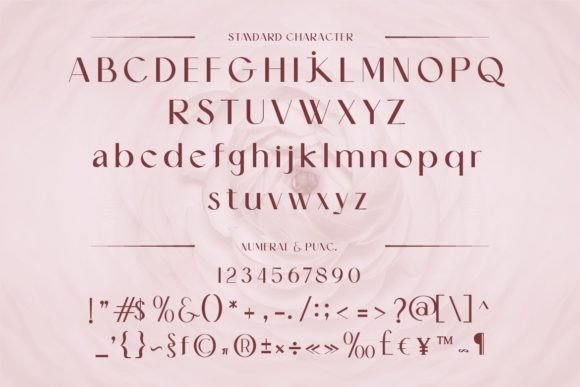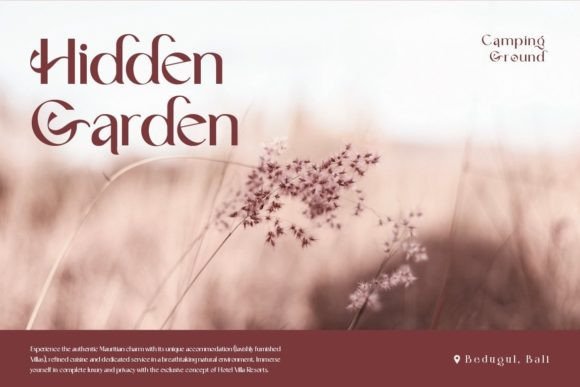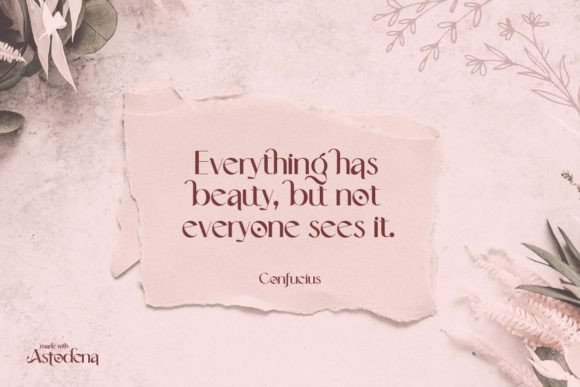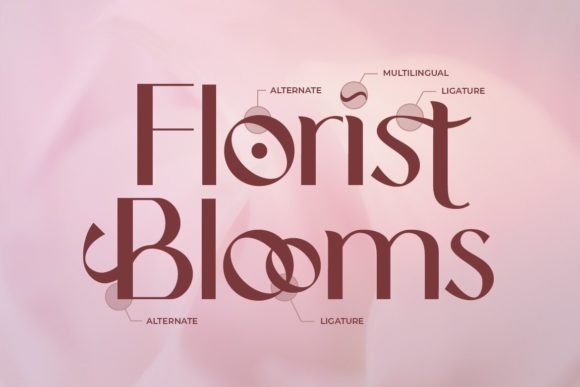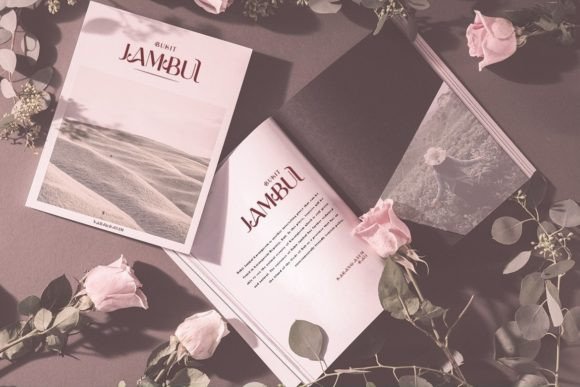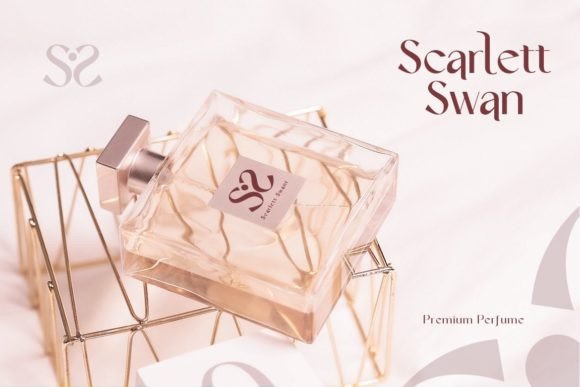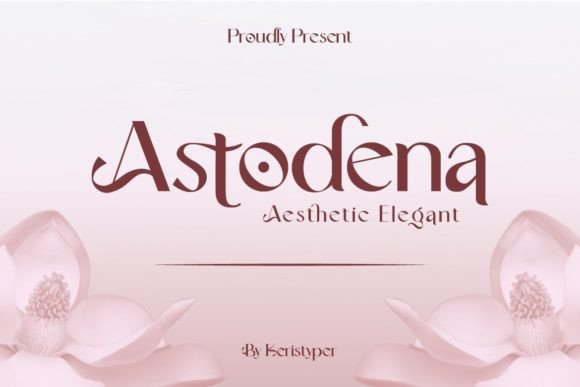
Astodena Font: Elevate Your Design with Elegance
In the world of typography, fonts play a crucial role in conveying the tone and aesthetic of a design. For designers and crafters seeking a font that exudes elegance and sophistication, Astodena is an excellent choice. This stunning sans serif font is perfect for a wide range of applications, from logo design to movie titles, and is sure to elevate your work to new heights.
The Astodena Advantage
So, what sets Astodena apart from other fonts? Here are a few key advantages that make it a standout choice:
- Elegant and Aesthetic: Astodena boasts a sleek, modern design that is both elegant and visually appealing. Its clean lines and minimalist aesthetic make it perfect for designs that require a touch of sophistication.
- Versatile: This font is incredibly versatile, making it suitable for a wide range of applications. Whether you’re working on a logo design, social media graphics, movie titles, book titles, or even long text letters, Astodena is an excellent choice.
- Readable: Despite its elegant design, Astodena is also highly readable, making it perfect for both short and long text. This means you can use it for everything from headlines to body text, ensuring a consistent and professional look throughout your design.
Use Cases for Astodena
Given its versatility and aesthetic appeal, Astodena is suitable for a variety of design projects. Here are some use cases where Astodena truly shines:
- Logo Design: Create a lasting impression with a logo that exudes elegance and sophistication. Astodena’s unique design makes it perfect for logos that need to stand out.
- Social Media Graphics: Elevate your social media presence with graphics that feature Astodena. Its clean and modern design is sure to grab attention and engage your audience.
- Movie and Book Titles: Add a touch of glamour to your movie and book titles with Astodena. Its elegant design is perfect for creating eye-catching titles that draw readers in.
- Secondary Text: Use Astodena as a secondary font to add a touch of elegance to your designs. Its readability and aesthetic appeal make it perfect for supporting text that needs to complement a primary font.
Why Designers and Crafters Love Astodena
Designers and crafters are always on the lookout for fonts that can help them create stunning designs. Here are a few reasons why Astodena has become a favorite among creative professionals:
- Unique Design: Astodena’s unique design sets it apart from more traditional fonts. Its elegant aesthetic adds a touch of sophistication to any design.
- Easy to Use: With Astodena, you can easily create professional-looking designs without spending hours agonizing over typography. Its readability and versatility make it a breeze to use.
- High-Quality: As a high-quality font, Astodena ensures that your designs look crisp and professional, even at small sizes.
| Font Name | Astodena Font |
| Author | Keristyper |
In conclusion, Astodena is a versatile and elegant sans serif font that is perfect for designers and crafters looking to elevate their designs. Its unique aesthetic, readability, and versatility make it suitable for a wide range of applications, from logo design to movie titles and beyond. Whether you’re working on a personal project or a client’s design, Astodena is an excellent choice for adding a touch of sophistication and elegance.